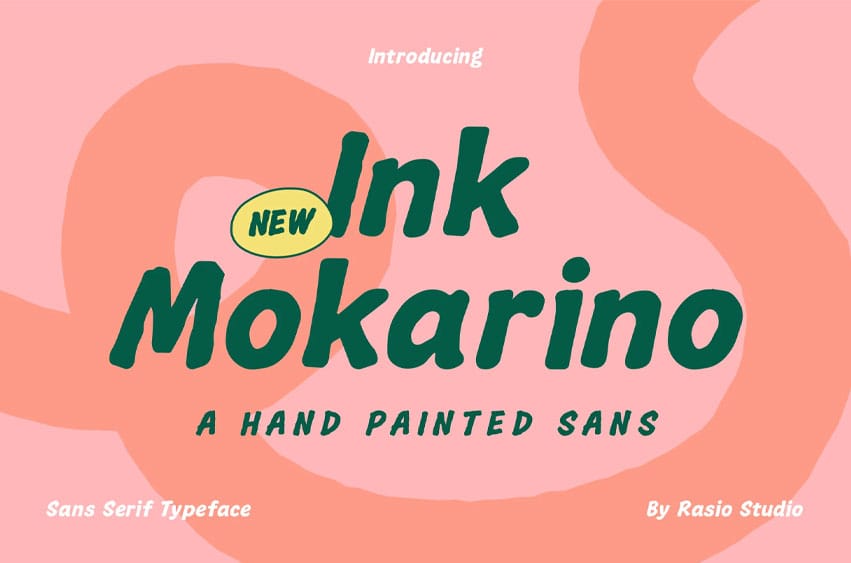
Ink Mokarino Font is a playful, hand-drawn sans serif font that radiates charm and personality. With its uneven strokes and warm brush texture, this font blends the organic feel of a handwritten typeface with the clarity of a sans serif structure. It’s ideal for branding projects that need a friendly and approachable tone—perfect for food packaging, lifestyle products, children’s designs, and artisan labels. The font supports uppercase, lowercase, numerals, and special characters, giving flexibility for display and editorial uses.
Suitable for hand-drawn font, doodle font, fun fonts, food fonts, kids fonts, soft, cute font, celebration, cartoon packaging, branding for organic products, children’s books, DIY projects, craft labels, handwritten style posters, summer event flyers, playful social media graphics, and cheerful merchandise design.